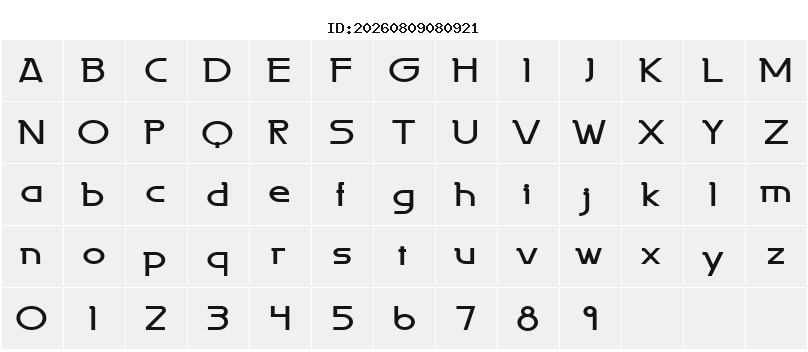
Persia Wide Preview
• Font Name: Persia Wide
• Full Font Name: Persia Wide Bold
About Persia Wide.ttf
Persia Wide.ttf is a modern, elegant sans-serif font designed for ultimate readability and visual harmony. Perfect for branding, headlines, web design, and print materials.